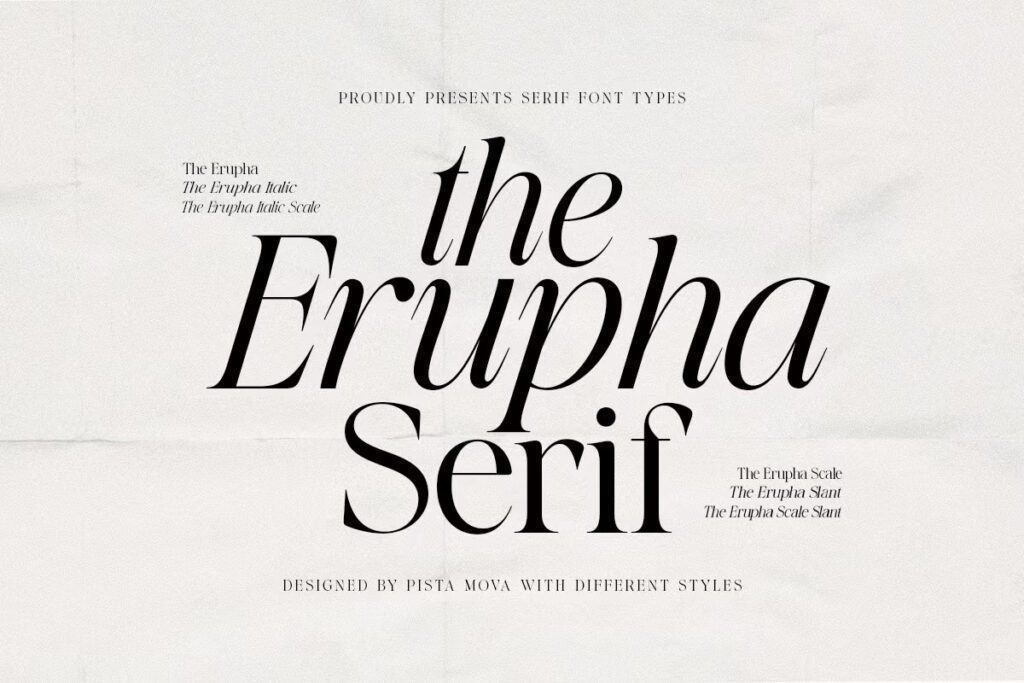
The Erupha: A Timeless Serif Typeface for Modern Design
Introducing The Erupha, a beautifully crafted serif typeface that merges classic elegance with modern aesthetics. Whether you’re working on an editorial design, a luxurious brand identity, or sleek web layouts, The Erupha brings a refined and sophisticated charm to your projects. With its high-contrast strokes and graceful curves, this font is perfect for designers seeking to blend timeless appeal with contemporary flair.
Why Choose The Erupha?
Elegance Meets Versatility: The Erupha’s clean lines and perfectly balanced proportions make it ideal for a wide variety of design applications. Whether you’re creating editorial layouts, branding materials, or website designs, its timeless appeal shines through.
Unique Ligatures and True Italics: One of the standout features of The Erupha is its collection of elegant ligatures that create unique letter combinations, adding personality and flair to your designs. Its true italics have been carefully designed to complement the upright characters, giving your projects a harmonious flow.
Global Reach with Multilingual Support: Supporting over 90 languages, The Erupha ensures your message resonates with a global audience. From local brands to international campaigns, this font’s versatility makes it an excellent choice for any project.
Key Features of The Erupha Serif Typeface
Elegant Ligatures: Enhance your typography with curated ligatures, giving your text a stylish and sophisticated feel.
OpenType Features: Take full control of your typography with the powerful OpenType feature, including ligatures that create eye-catching letter combinations.
True Italics: The italics in The Erupha aren’t just regular slanted versions—they have been thoughtfully crafted to stand out while complementing the upright characters.
Perfect for Multiple Applications: Whether you’re working on editorial design (magazines, newspapers, or books), branding and logos, web design, product packaging, or invitations and stationery, The Erupha’s versatility makes it the perfect fit.
Perfect for Designers Seeking Elegance
The Erupha is more than just a serif typeface—it’s a statement of timeless style and modern sophistication. Whether your project demands editorial elegance, luxurious branding, or a standout digital experience, The Erupha is here to elevate your designs to the next level.
Experience the timeless elegance and modern appeal of The Erupha serif typeface. Its versatility, ligature options, and multilingual support make it an essential tool for designers seeking to create captivating and refined visuals.